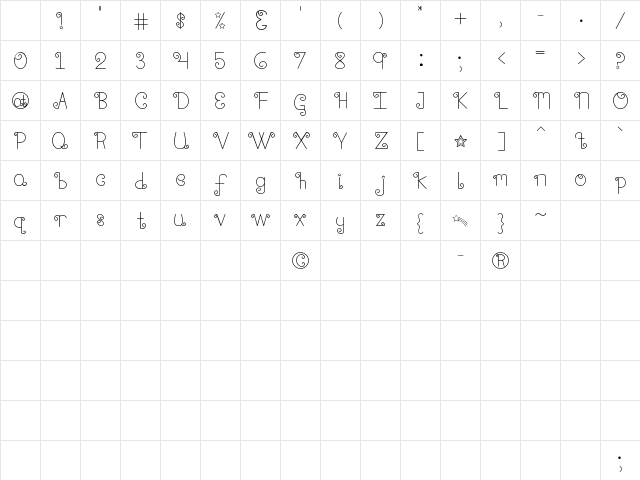
Shooting Stars Regular
Designer: MiffinFonts
Design Context for Shooting Stars
Shooting Stars is a composed and adaptable typeface that performs quietly and consistently across a wide range of design contexts.